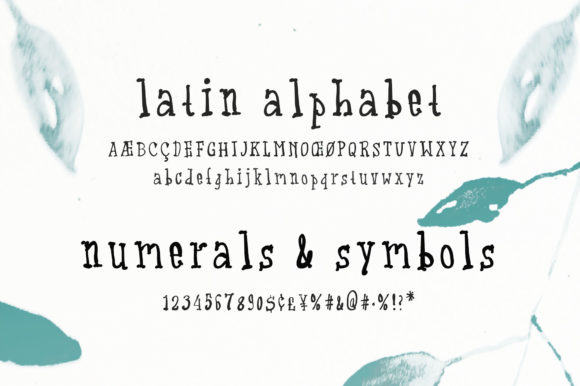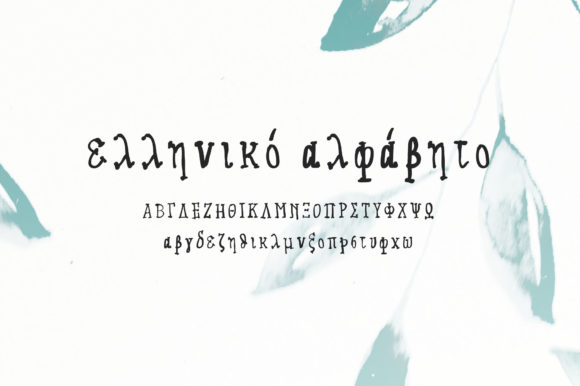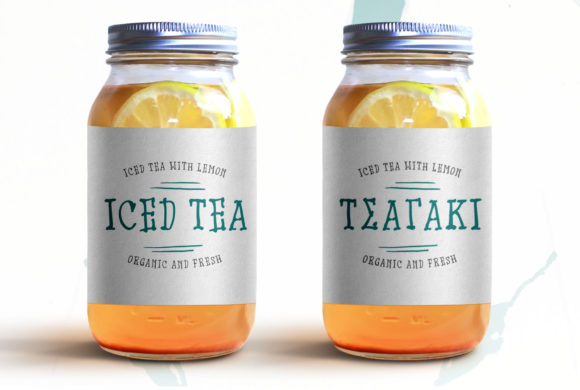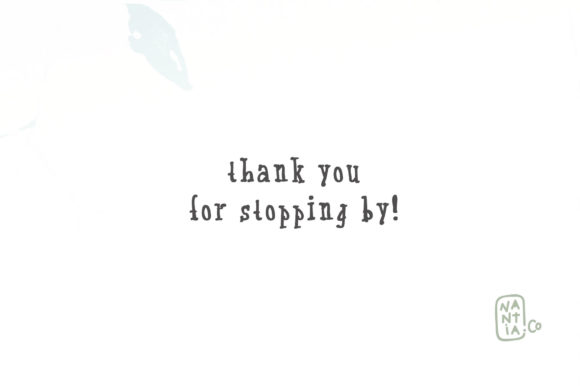
Introduction to Miron Font
Miron is a 100% hand-crafted typeface capable of achieving a childish handwritten feeling.
This font has a really nice flow and is perfect for a variety of design projects .
Key Features of Miron Font